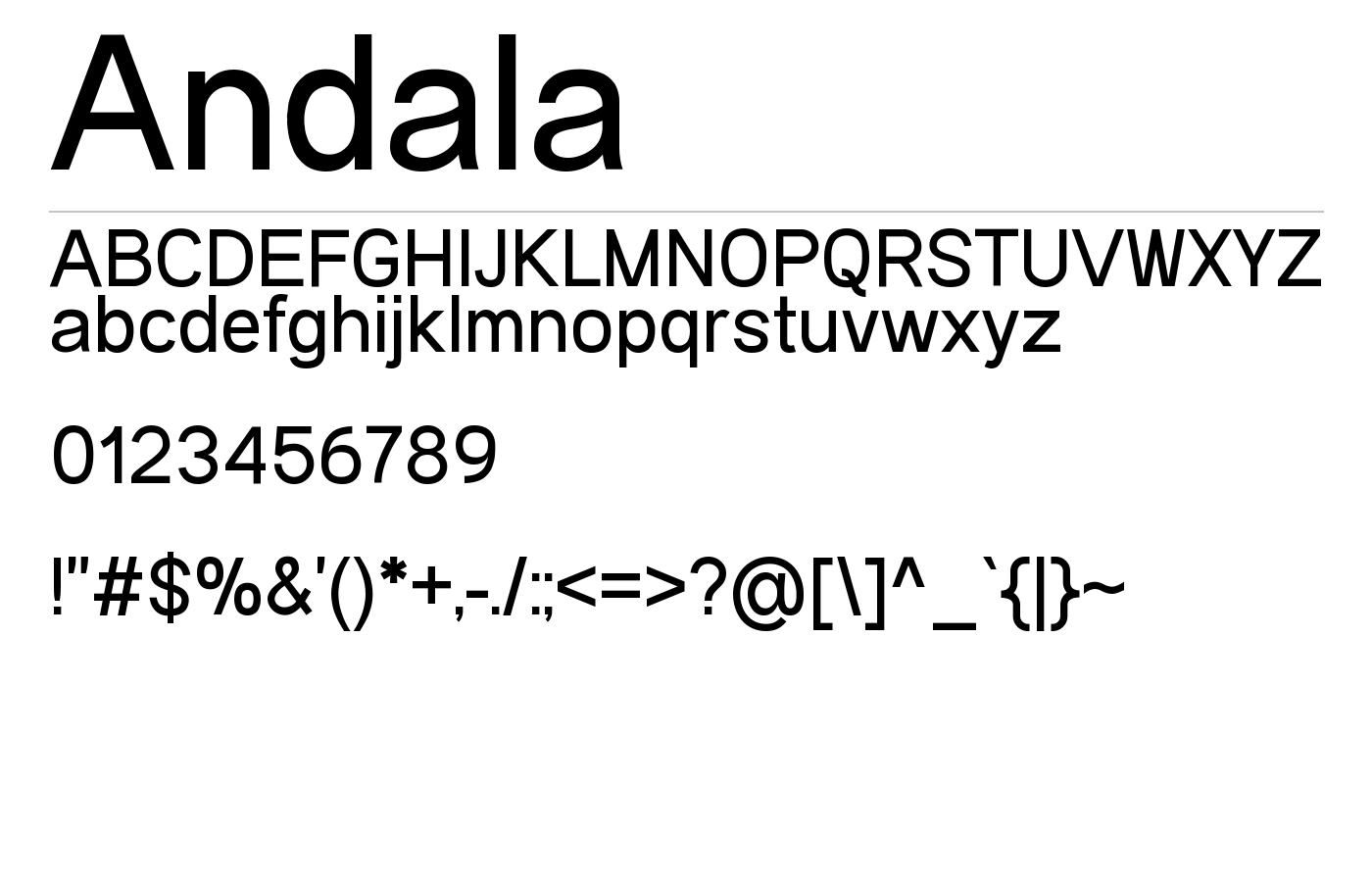
Andala is a clean and modern sans serif font characterized by its regular weight, balanced proportions, and clear, geometric letterforms. Its open, straightforward design and medium x-height make it highly legible, ideal for both digital and print use, lending a professional yet approachable tone to branding, editorial content, and user interfaces. This versatile font works well in headlines and body text, offering clarity and simplicity without sacrificing a contemporary feel.
Andala Font
About Andala Font
| Font family | Andala Font |
| Designer | Amru |